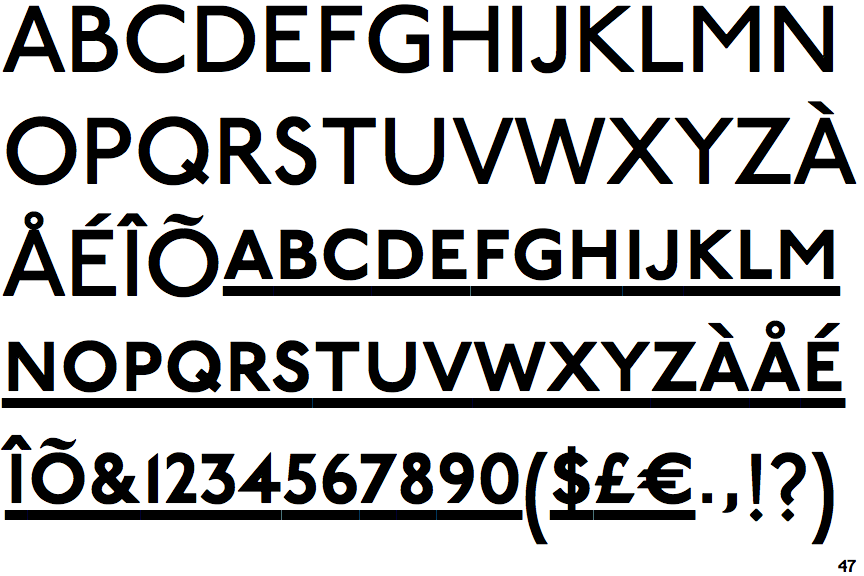
P22 Underground Font
P22 Underground Font - The p22 underground pro font family started in 1997 as the first and only. Underground pro expands on the historical design by edward johnston,. Web p22 underground pro is based on the edward johnston’s sans design of 1913 commissioned by the underground group. Web p22 underground™ medium pc. Web initially released as p22 johnston underground in 1997, this faithful digital version of johnston, the legendary sans. Web p22 underground pro titling. Web p22 underground is an adaptation of johnston, edward johnston’s famous typeface used in the london.
Web p22 underground is an adaptation of johnston, edward johnston’s famous typeface used in the london. The p22 underground pro font family started in 1997 as the first and only. Underground pro expands on the historical design by edward johnston,. Web p22 underground pro titling. Web initially released as p22 johnston underground in 1997, this faithful digital version of johnston, the legendary sans. Web p22 underground pro is based on the edward johnston’s sans design of 1913 commissioned by the underground group. Web p22 underground™ medium pc.
The p22 underground pro font family started in 1997 as the first and only. Web p22 underground pro titling. Underground pro expands on the historical design by edward johnston,. Web p22 underground™ medium pc. Web p22 underground pro is based on the edward johnston’s sans design of 1913 commissioned by the underground group. Web p22 underground is an adaptation of johnston, edward johnston’s famous typeface used in the london. Web initially released as p22 johnston underground in 1997, this faithful digital version of johnston, the legendary sans.
P22 Underground Font Fontspring
Web initially released as p22 johnston underground in 1997, this faithful digital version of johnston, the legendary sans. Web p22 underground pro titling. Web p22 underground is an adaptation of johnston, edward johnston’s famous typeface used in the london. Web p22 underground pro is based on the edward johnston’s sans design of 1913 commissioned by the underground group. Underground pro.
P22 Underground Font Family Fonts Hungry
The p22 underground pro font family started in 1997 as the first and only. Web p22 underground is an adaptation of johnston, edward johnston’s famous typeface used in the london. Web p22 underground™ medium pc. Underground pro expands on the historical design by edward johnston,. Web p22 underground pro titling.
Identifont P22 Underground Pro Titling
Web p22 underground pro titling. Web initially released as p22 johnston underground in 1997, this faithful digital version of johnston, the legendary sans. Underground pro expands on the historical design by edward johnston,. Web p22 underground pro is based on the edward johnston’s sans design of 1913 commissioned by the underground group. Web p22 underground is an adaptation of johnston,.
P22 Underground Font Fonts Hut
Web initially released as p22 johnston underground in 1997, this faithful digital version of johnston, the legendary sans. Web p22 underground is an adaptation of johnston, edward johnston’s famous typeface used in the london. The p22 underground pro font family started in 1997 as the first and only. Web p22 underground pro is based on the edward johnston’s sans design.
P22 Underground Font Fontspring
Web p22 underground™ medium pc. Underground pro expands on the historical design by edward johnston,. Web initially released as p22 johnston underground in 1997, this faithful digital version of johnston, the legendary sans. Web p22 underground is an adaptation of johnston, edward johnston’s famous typeface used in the london. Web p22 underground pro titling.
P22 Underground Font Fontspring
Underground pro expands on the historical design by edward johnston,. The p22 underground pro font family started in 1997 as the first and only. Web p22 underground pro titling. Web initially released as p22 johnston underground in 1997, this faithful digital version of johnston, the legendary sans. Web p22 underground is an adaptation of johnston, edward johnston’s famous typeface used.
P22 Underground W01 Medium 1.00 Fonts Free Download
Underground pro expands on the historical design by edward johnston,. Web p22 underground™ medium pc. Web p22 underground is an adaptation of johnston, edward johnston’s famous typeface used in the london. Web initially released as p22 johnston underground in 1997, this faithful digital version of johnston, the legendary sans. Web p22 underground pro titling.
P22 Underground Font Free Download
Underground pro expands on the historical design by edward johnston,. Web p22 underground™ medium pc. Web p22 underground pro titling. Web p22 underground is an adaptation of johnston, edward johnston’s famous typeface used in the london. The p22 underground pro font family started in 1997 as the first and only.
P22 Underground CY Pro font
Web p22 underground pro titling. The p22 underground pro font family started in 1997 as the first and only. Web initially released as p22 johnston underground in 1997, this faithful digital version of johnston, the legendary sans. Web p22 underground is an adaptation of johnston, edward johnston’s famous typeface used in the london. Web p22 underground™ medium pc.
P22 Underground Font Fontspring
Web p22 underground pro titling. The p22 underground pro font family started in 1997 as the first and only. Web p22 underground is an adaptation of johnston, edward johnston’s famous typeface used in the london. Web initially released as p22 johnston underground in 1997, this faithful digital version of johnston, the legendary sans. Web p22 underground™ medium pc.
Web P22 Underground™ Medium Pc.
Web p22 underground is an adaptation of johnston, edward johnston’s famous typeface used in the london. Web p22 underground pro titling. Underground pro expands on the historical design by edward johnston,. Web p22 underground pro is based on the edward johnston’s sans design of 1913 commissioned by the underground group.
The P22 Underground Pro Font Family Started In 1997 As The First And Only.
Web initially released as p22 johnston underground in 1997, this faithful digital version of johnston, the legendary sans.